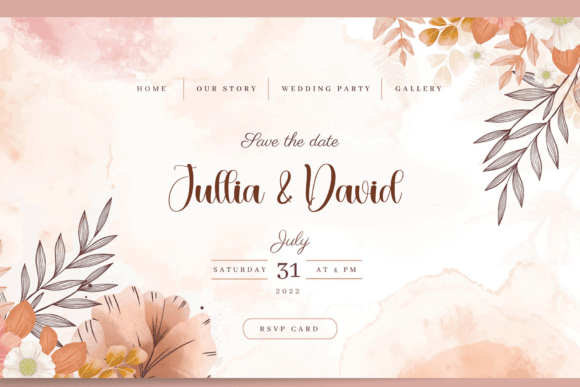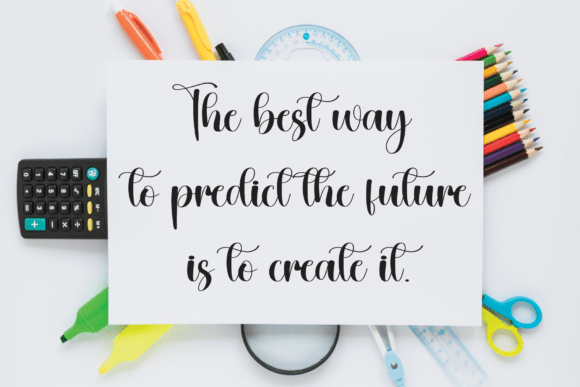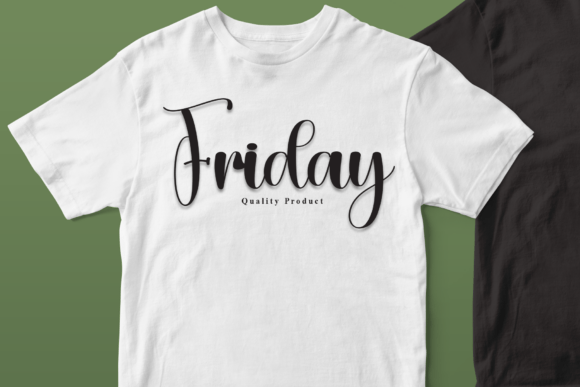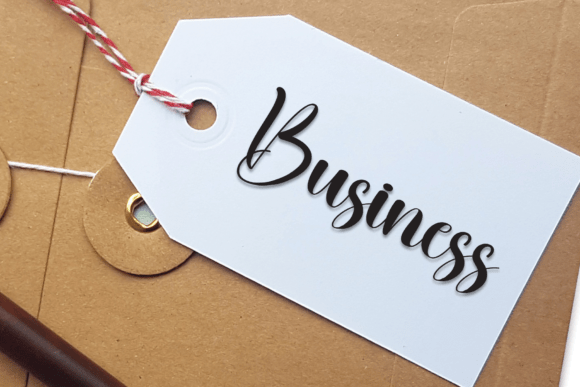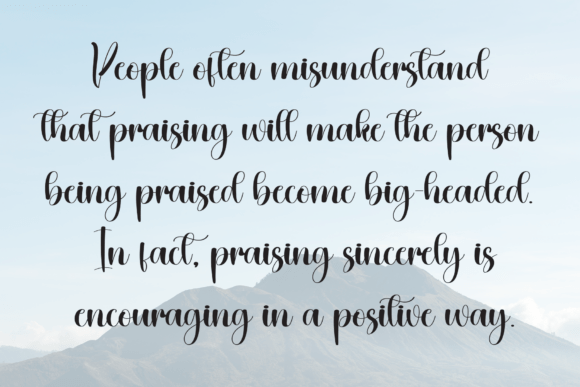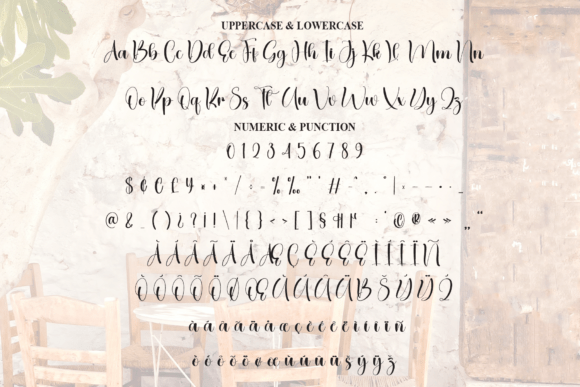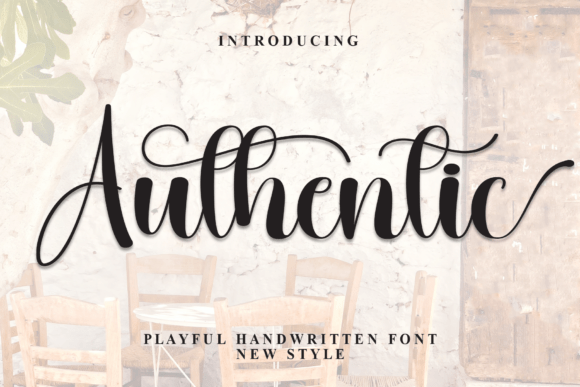
The Beauty of Authentic Font: A Script Handwritten Font that Captures the Essence of Natural Handwriting
In the world of typography, fonts play a crucial role in conveying the tone and personality of a brand or design. Among the numerous font styles available, script handwritten fonts have gained immense popularity for their unique and personal touch. One such font that has captured the hearts of designers and crafters alike is the Authentic font. This beautiful script handwritten font is designed to mimic the fluidity and elegance of natural handwriting, making it an ideal choice for a wide range of design projects.
What Makes Authentic Font Stand Out?
Authentic font is a script handwritten font that boasts elegant curves, organic strokes, and varying letter connections. These distinctive features work together to create a font that exudes warmth, authenticity, and creativity. The font’s natural flow and fluidity make it perfect for designs that require a personal touch, such as invitations, greeting cards, and branding materials.
The Characteristics of Authentic Font
So, what makes Authentic font so special? Here are some of its key characteristics:
- Elegant Curves: Authentic font features smooth, flowing curves that give it a sophisticated and refined look.
- Organic Strokes: The font’s strokes are organic and natural, with subtle variations in width and texture that mimic the imperfections of handwriting.
- Varying Letter Connections: The letters in Authentic font are connected in a way that creates a sense of fluidity and movement, making it perfect for designs that require a dynamic feel.
- Warmth and Authenticity: The font’s natural, handwritten feel evokes a sense of warmth and authenticity, making it ideal for designs that require a personal touch.
Why Designers and Crafters Love Authentic Font
Designers and crafters love Authentic font for its versatility and aesthetic appeal. Here are some reasons why:
- Perfect for Branding: Authentic font is an excellent choice for branding materials, such as logos, business cards, and letterheads, as it adds a personal touch and creates a unique identity.
- Ideal for Stationery: The font’s elegant curves and organic strokes make it perfect for stationery designs, such as invitations, greeting cards, and thank-you cards.
- Suitable for Digital Designs: Authentic font is also suitable for digital designs, such as social media graphics, blog headers, and website titles, as it adds a touch of warmth and personality.
Tips for Using Authentic Font Effectively
To get the most out of Authentic font, here are some tips to keep in mind:
- Use it for Headings and Titles: Authentic font is perfect for headings and titles, as it adds a touch of elegance and sophistication.
- Pair it with Other Fonts: Experiment with pairing Authentic font with other fonts to create a unique and visually appealing design.
- Adjust the Size and Color: Adjust the size and color of the font to suit your design needs and create a cohesive look.
In conclusion, Authentic font is a beautiful script handwritten font that captures the essence of natural handwriting. With its elegant curves, organic strokes, and varying letter connections, this font style is perfect for designers and crafters who want to add a personal touch to their designs. Whether you’re creating branding materials, stationery, or digital designs, Authentic font is an excellent choice that is sure to impress.
So, if you’re looking for a font that exudes warmth, authenticity, and creativity, look no further than Authentic font. With its unique characteristics and versatility, this font is sure to become a staple in your design collection.